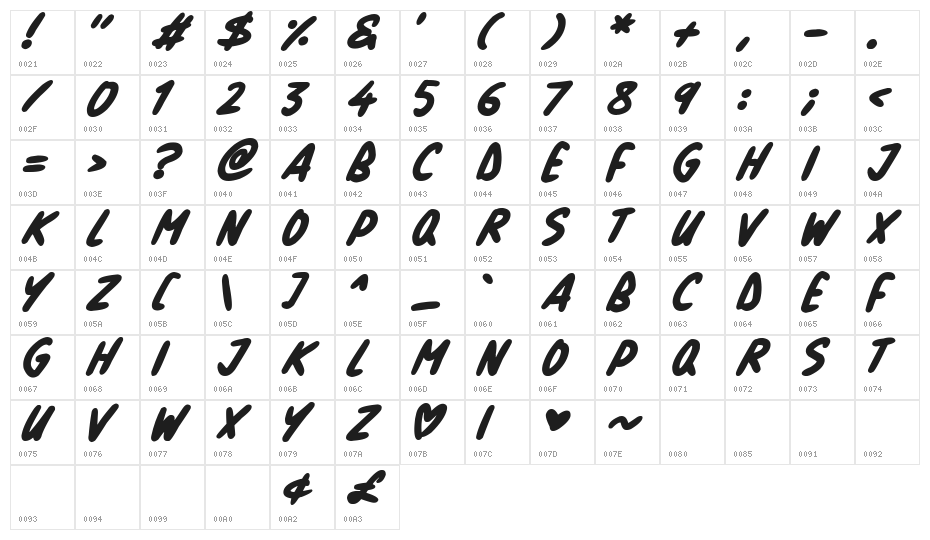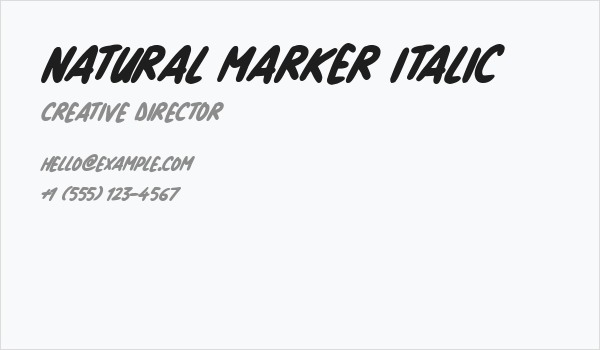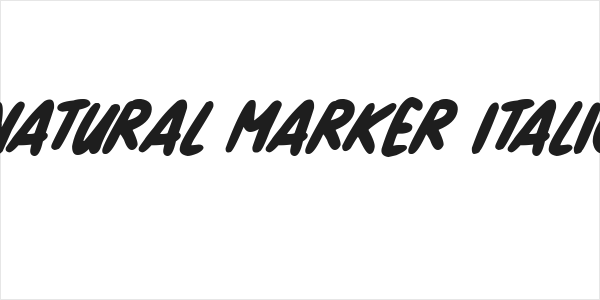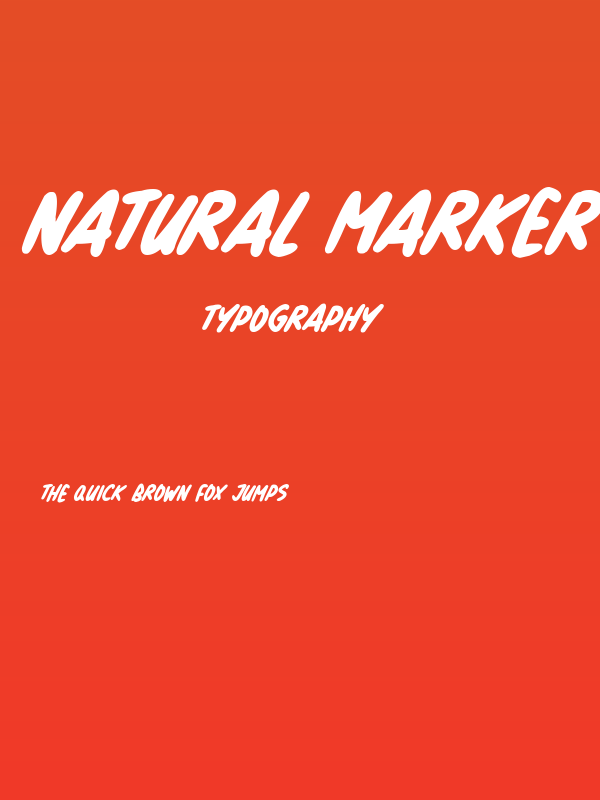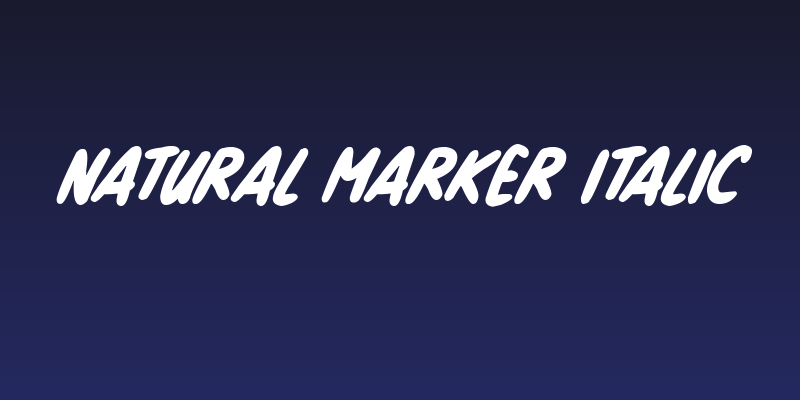
Natural Marker Italic Font
Natural Marker Italic Description
This font exudes a casual and dynamic feel, reminiscent of natural handwriting with a bold and italicized flair. The strokes are thick and consistent, giving it a strong presence on the page. Each character flows smoothly into the next, creating a sense of movement and energy. The uppercase and lowercase letters maintain a cohesive style, with rounded edges and a slightly slanted orientation that enhances its handwritten appearance. The numbers and special characters are equally expressive, maintaining the same bold and fluid style. This font is perfect for projects that require a personal touch or a sense of informality.
| Overall Style | Casual, Dynamic |
| Proposed Projects | Ideal for greeting cards, invitations, posters, and branding that requires a personal and informal touch. |